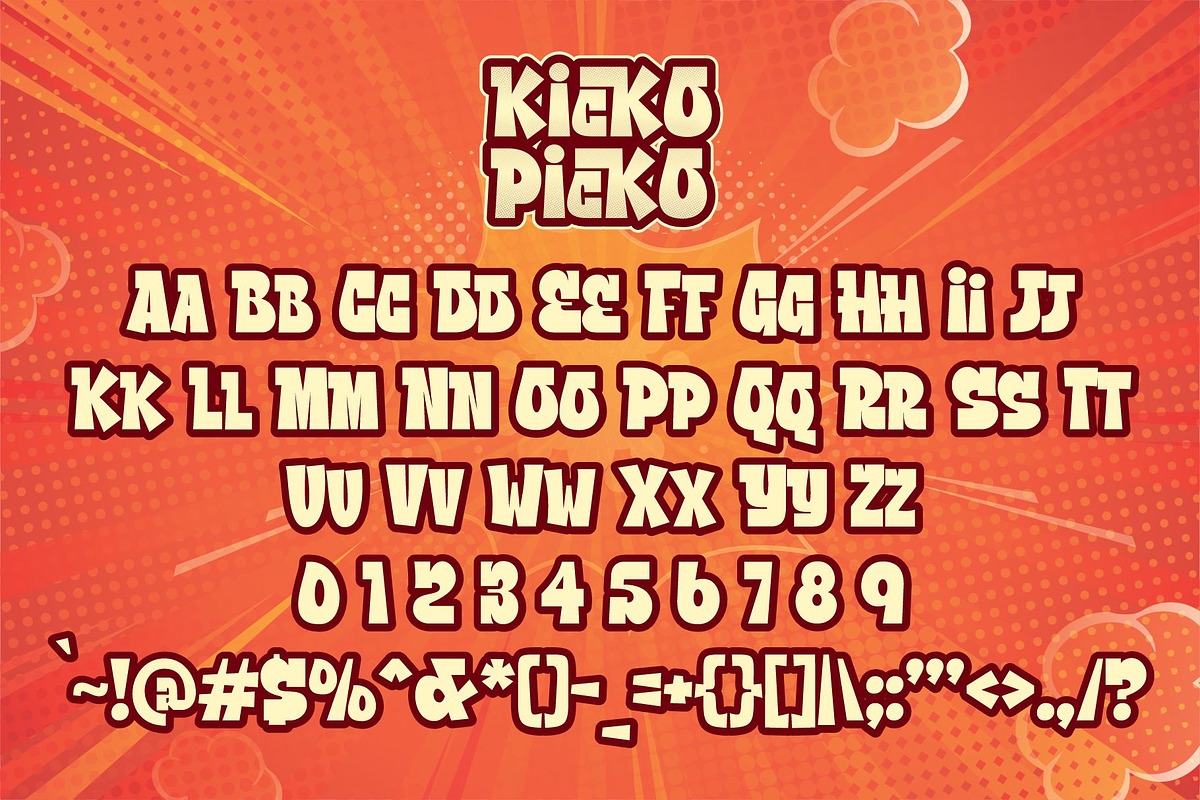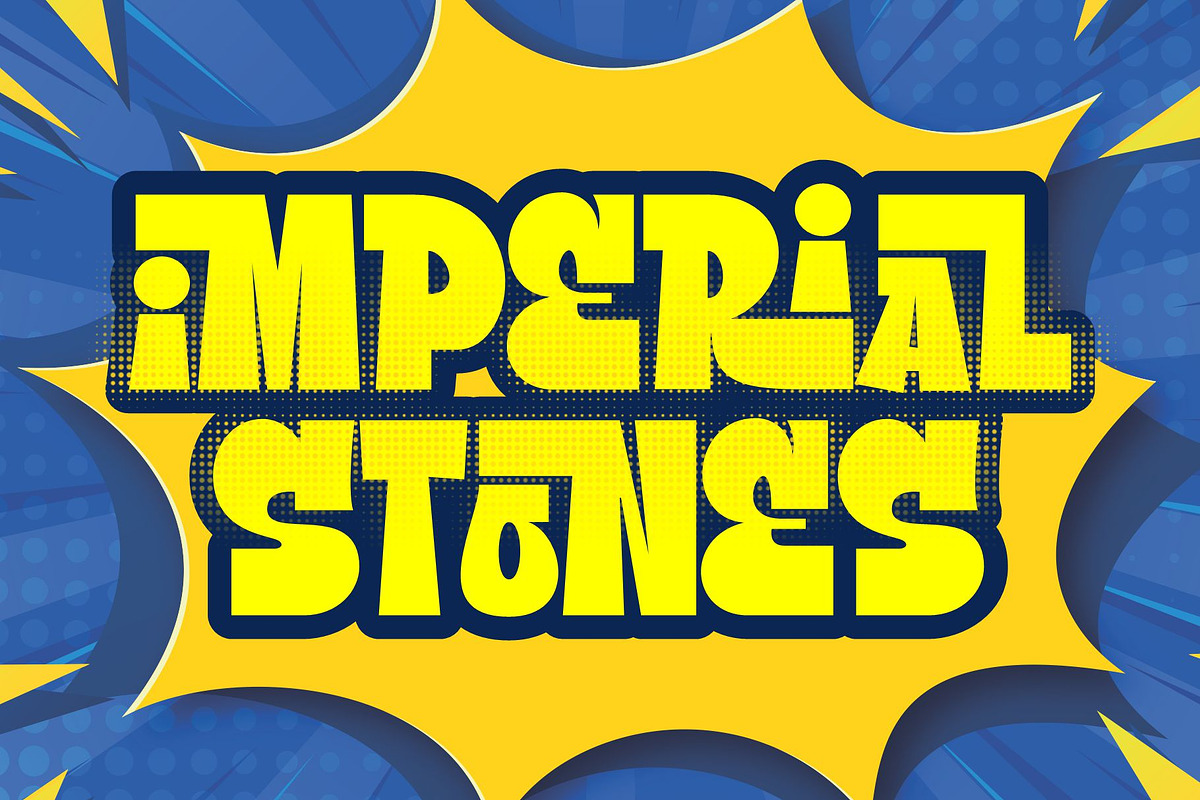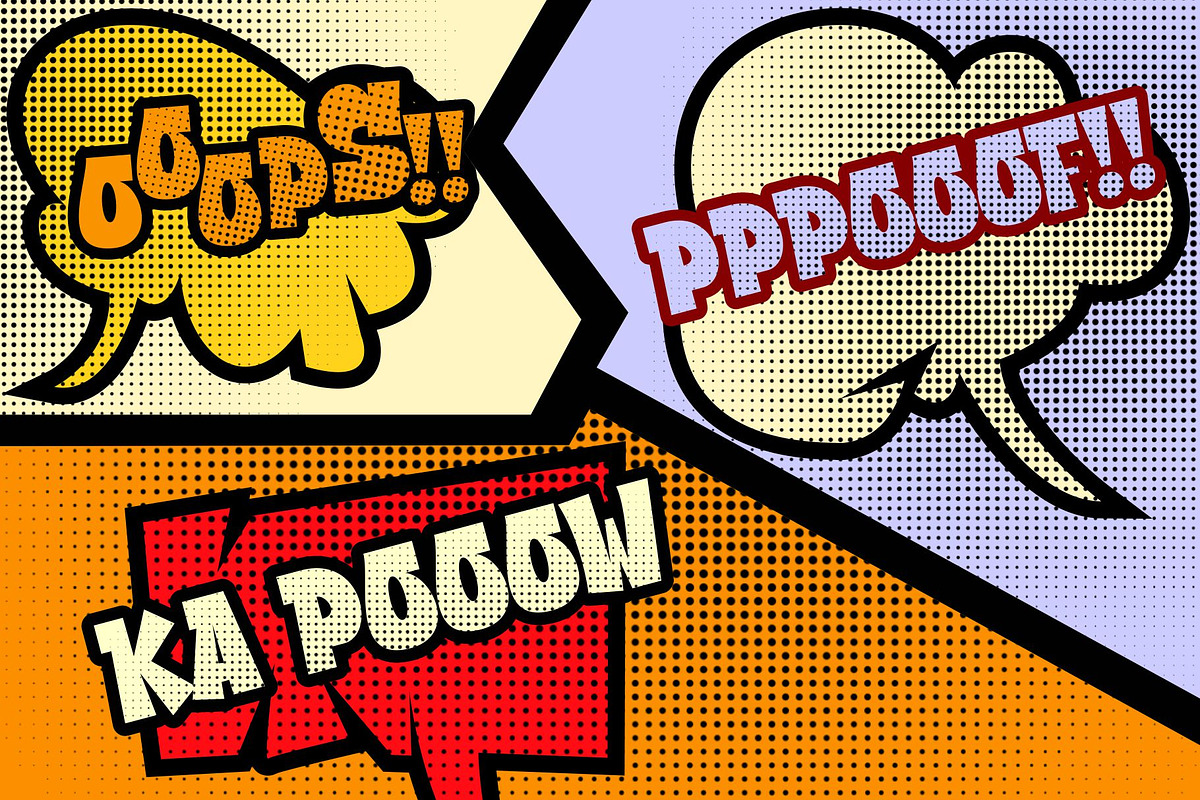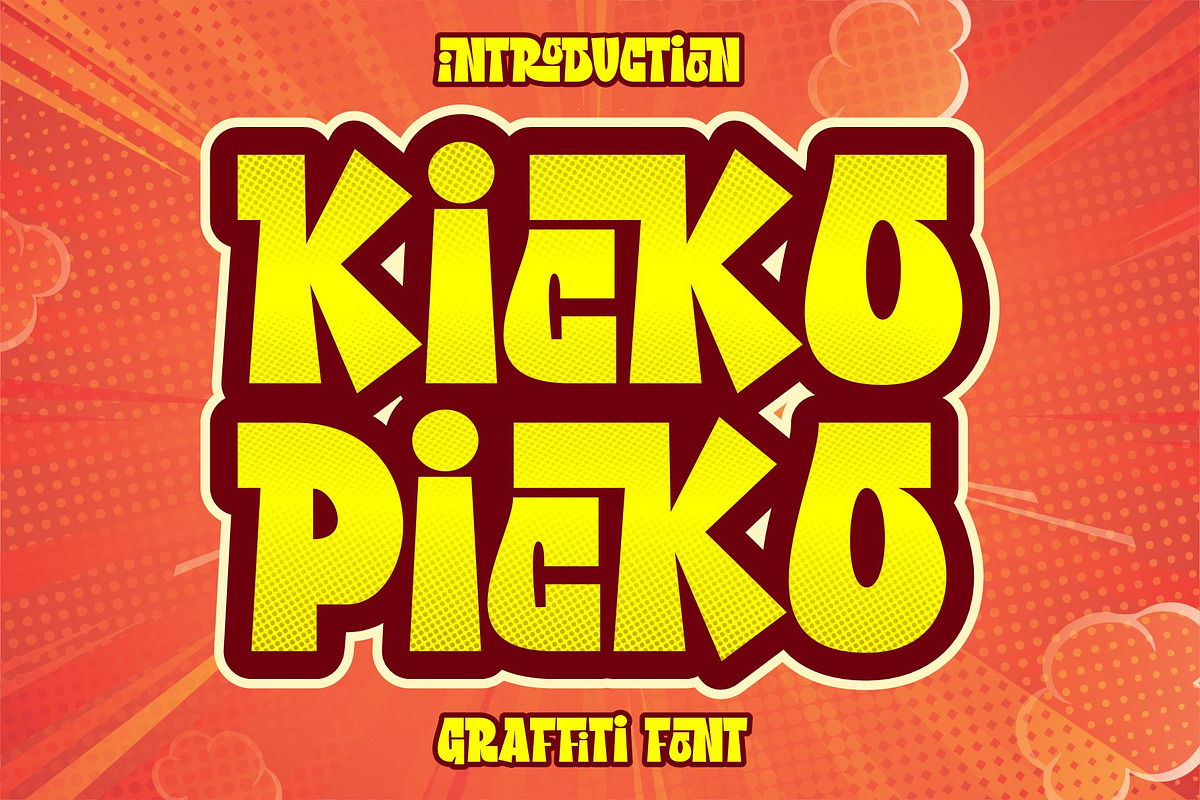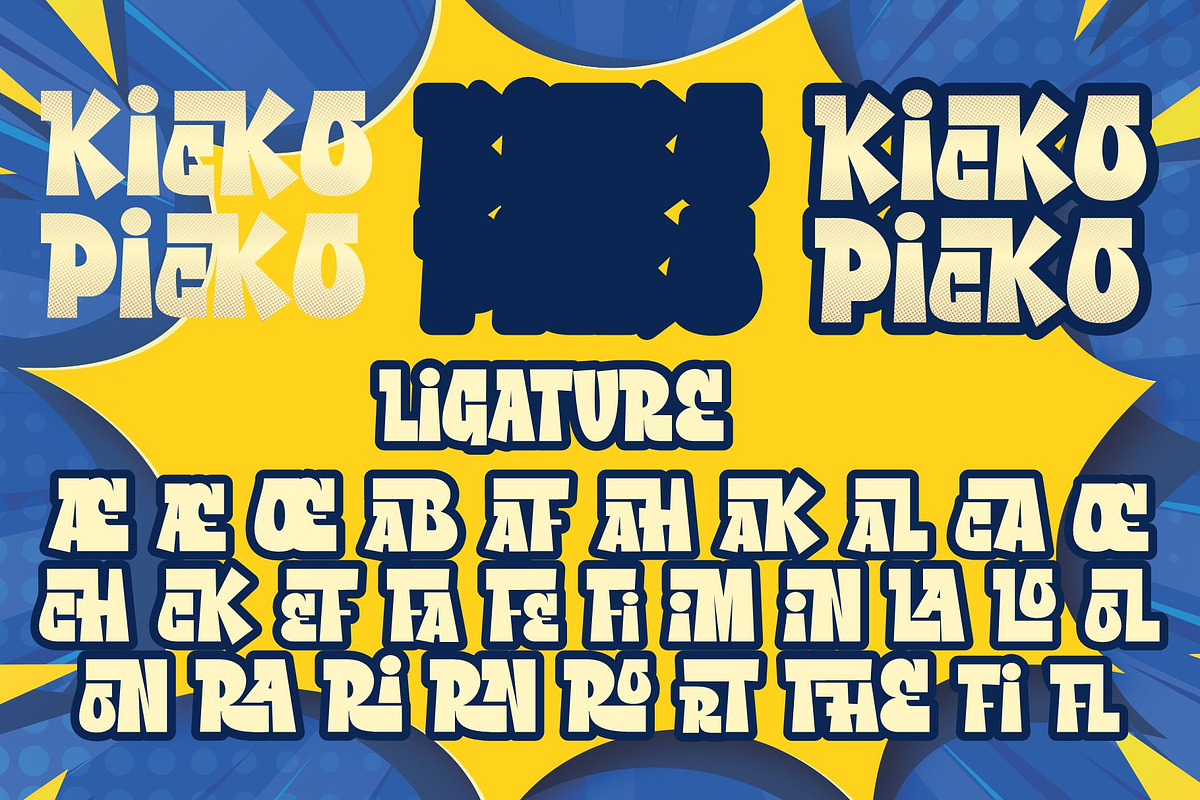
Kicko Picko
Introducing our new product, Kicko Picko Graffiti Font, Kicko Picko is inspired by graffiti style with a fun theme suitable for graffiti posters, illustrations, kids posters, flyers, kids books, comics.